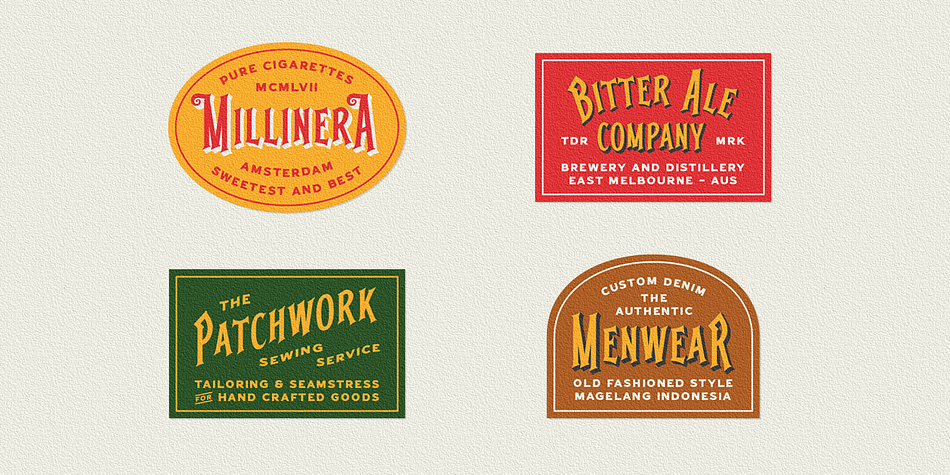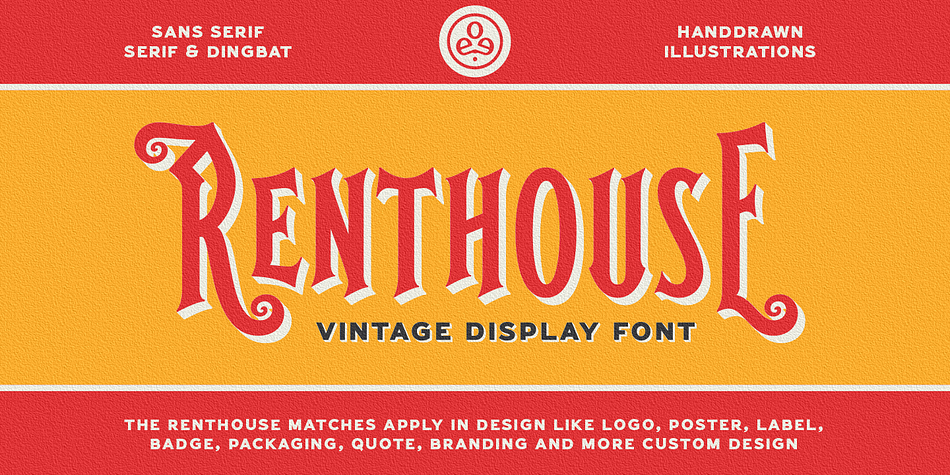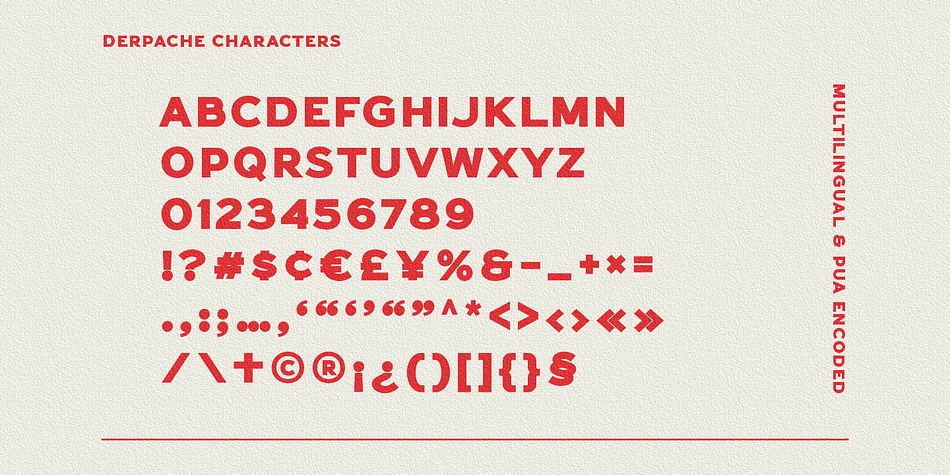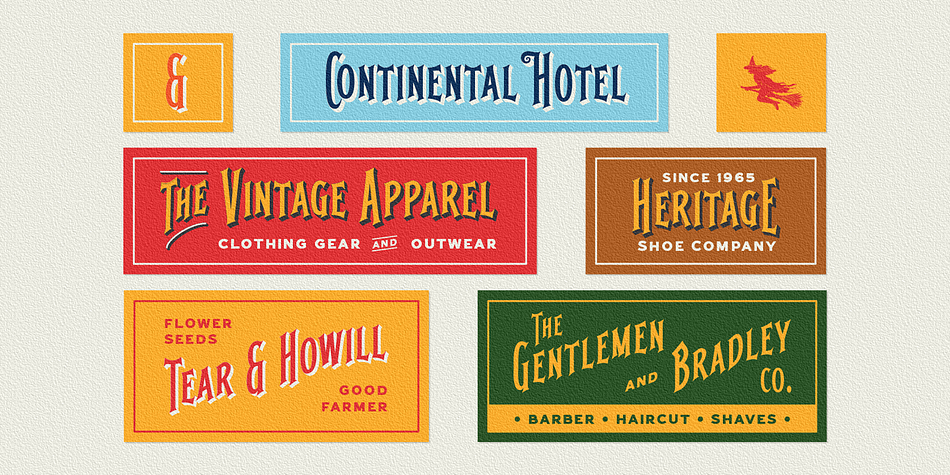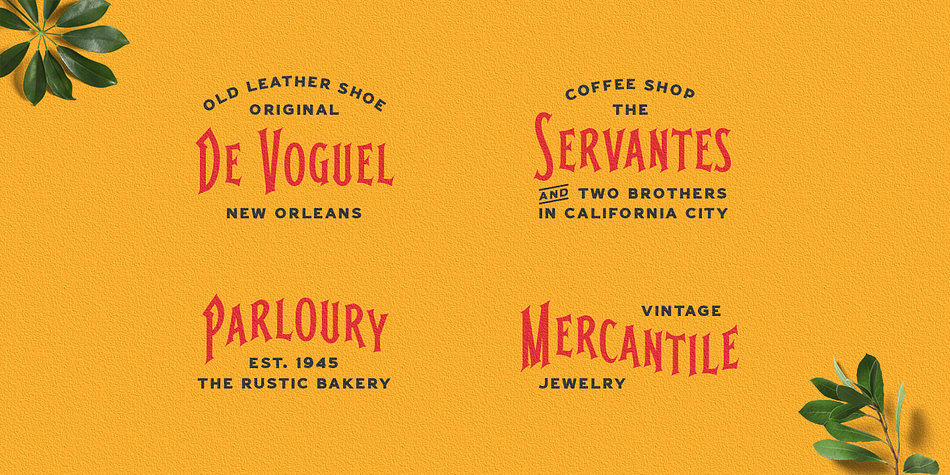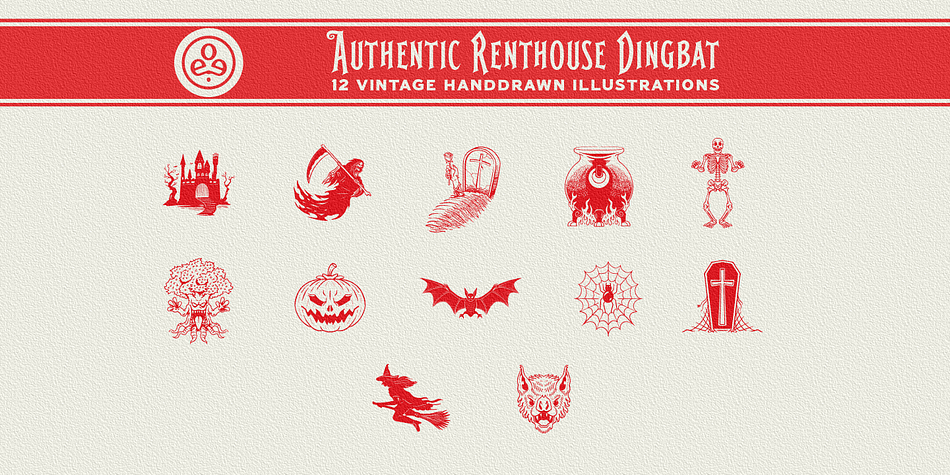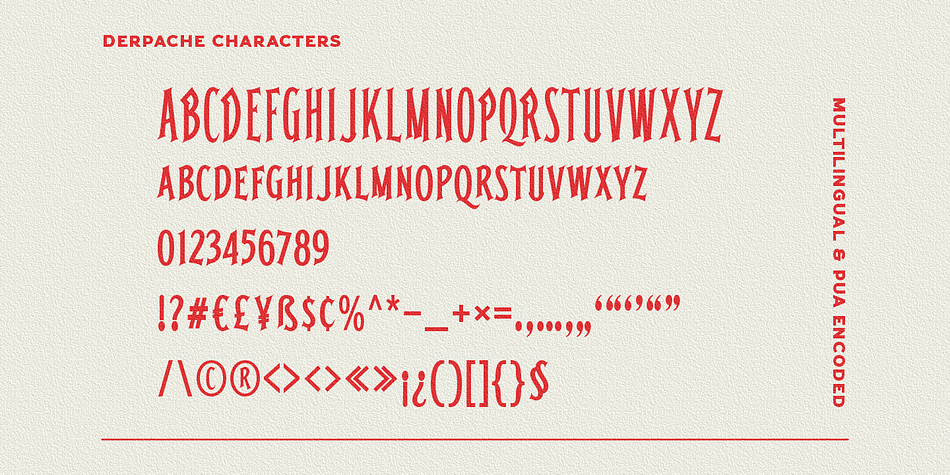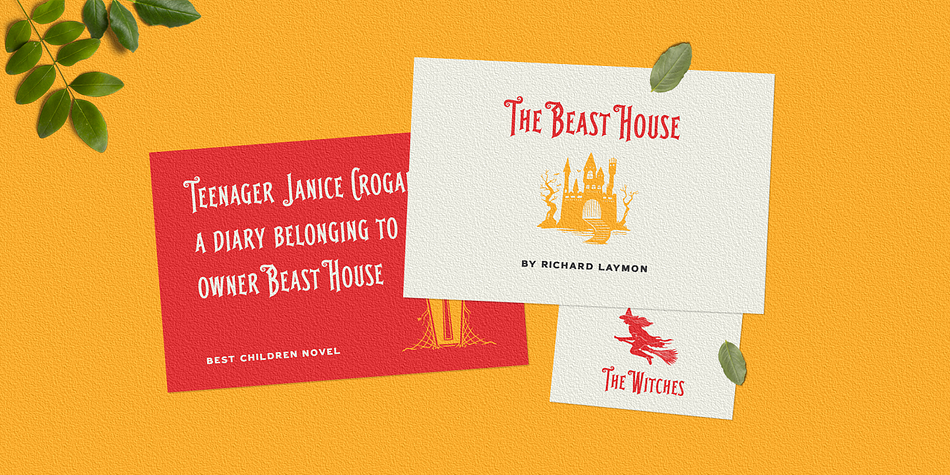
Designed by Edi Gunawan, Renthouse is a multiple classification font family. This typeface has three styles and was published by Edignwn Type.
The Renthouse Font is inspired by authentic typefaces in vintage labels. Font products contain serif and sans serif font. This collection gives more extra halloween illustrations in one pack. This serif font includes some alternates. The Renthouse matches apply in some designs such as the logo, poster, label, badge, packaging, t-shirt, branding, quotes and more custom design.
Renthouse features :
- All-caps, numeral, symbol, punctuation and alternate in serif font
- All-caps, numeral, symbol and punctuation in sans serif font
Renthouse includes :
- 3 fonts (serif, sans serif and dingbat)
- 12 hand-drawn illustrations in dingbat